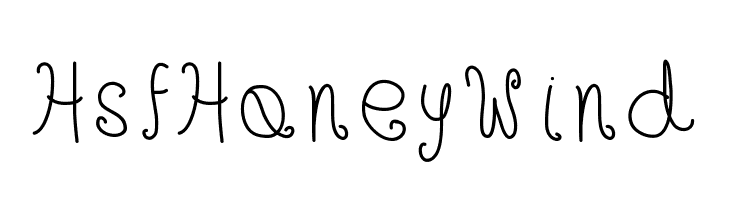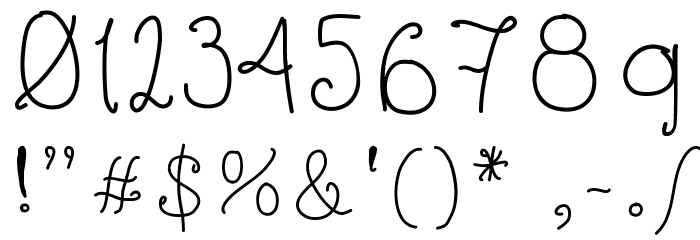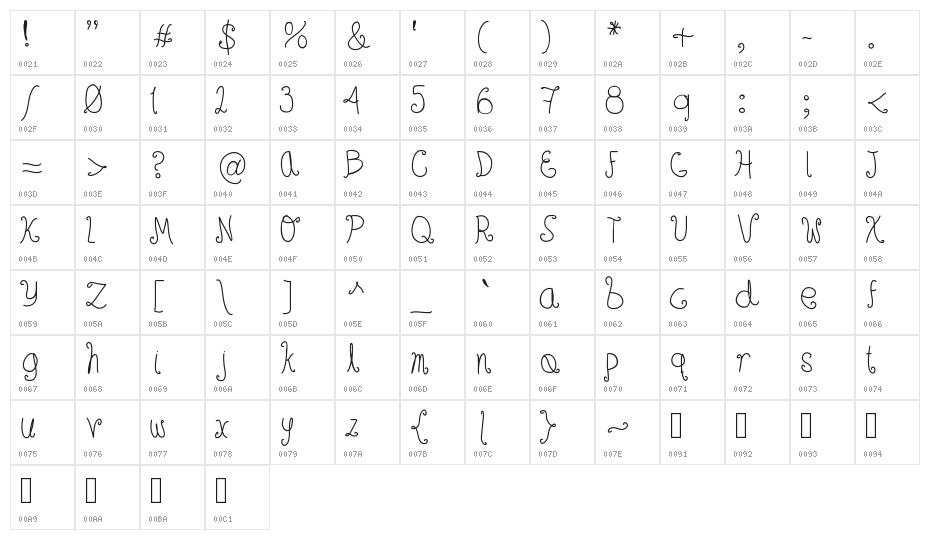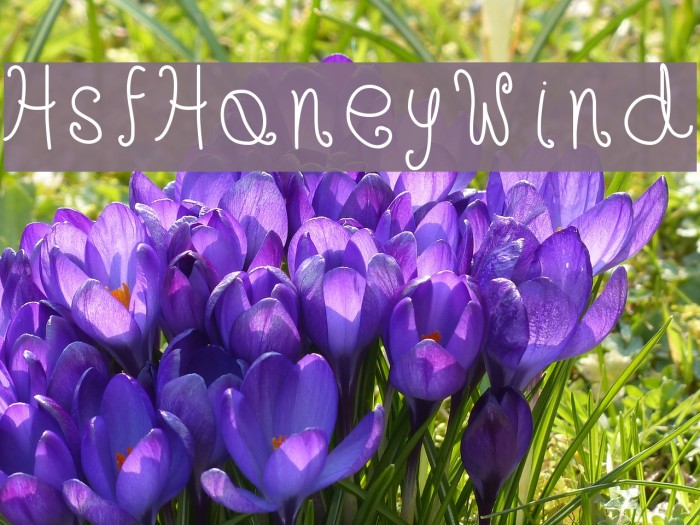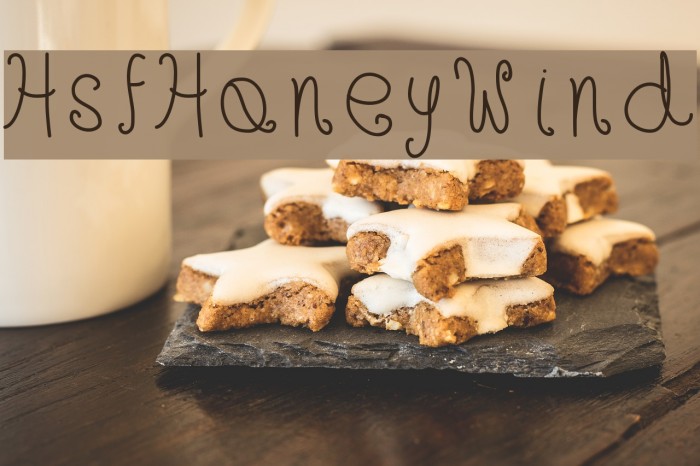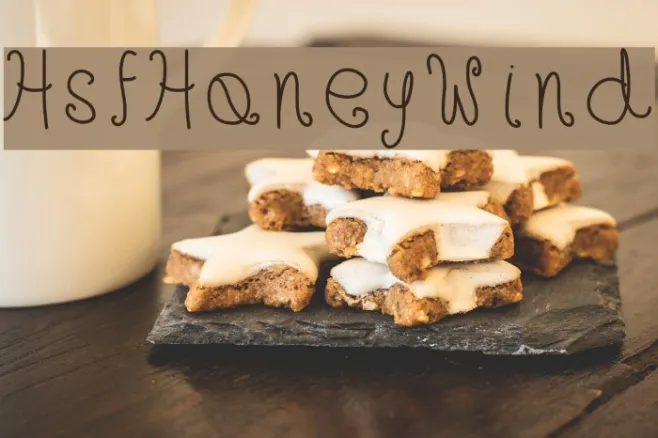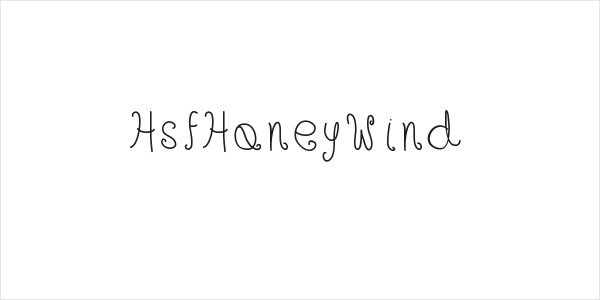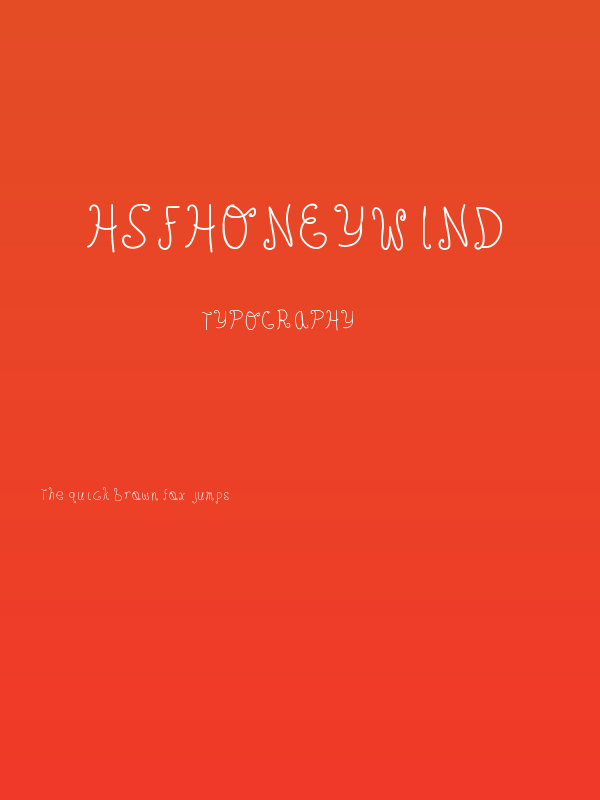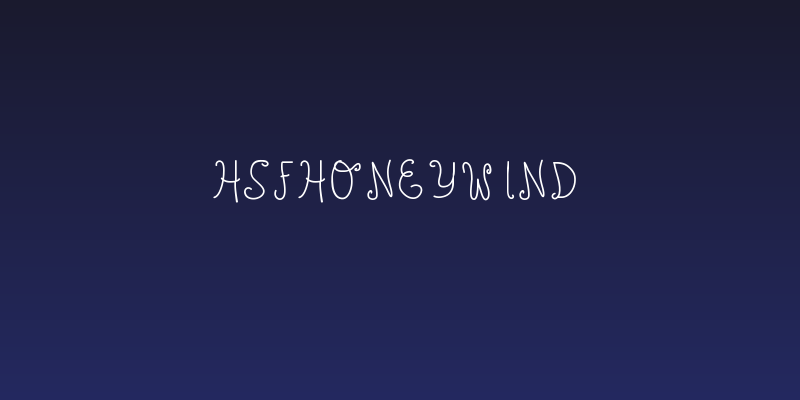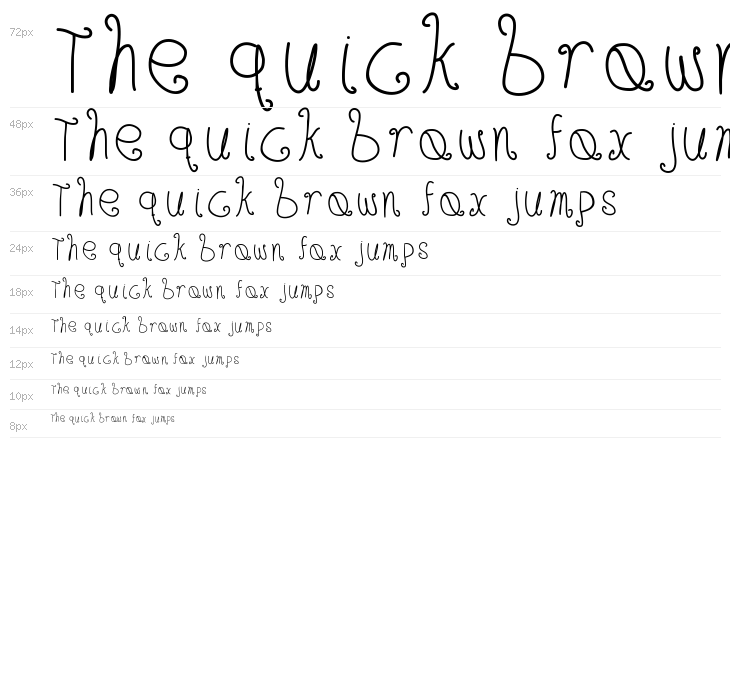
HsfHoneyWind Font
HsfHoneyWind Description
This font features a whimsical and playful style, characterized by its curly and looping strokes. Each letter has a distinct hand-drawn appearance, with a consistent flow that adds a sense of movement and charm. The uppercase and lowercase letters maintain a cohesive look, with rounded edges and a slight tilt that enhances its casual feel. Numbers and special characters follow the same design principles, ensuring uniformity across all elements. The font's unique personality makes it stand out, offering a creative and artistic touch to any project.
| Use Case | Logos, Invitations, Creative projects |
| Proposed Projects | Ideal for children's books, greeting cards, playful branding, and creative invitations. |